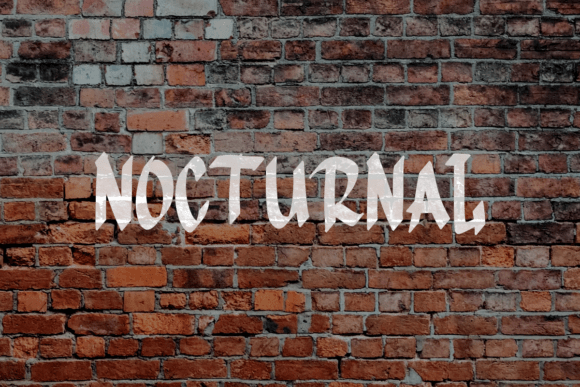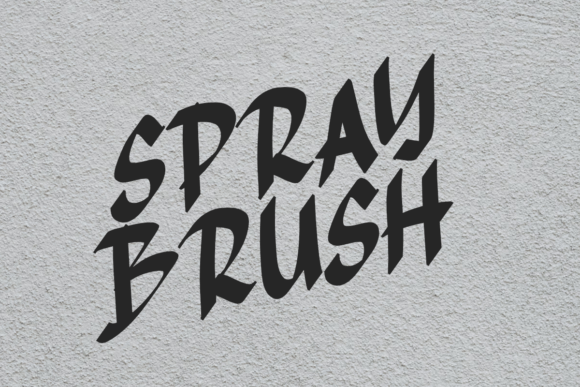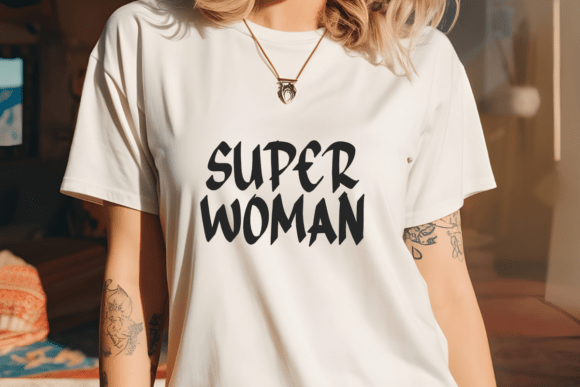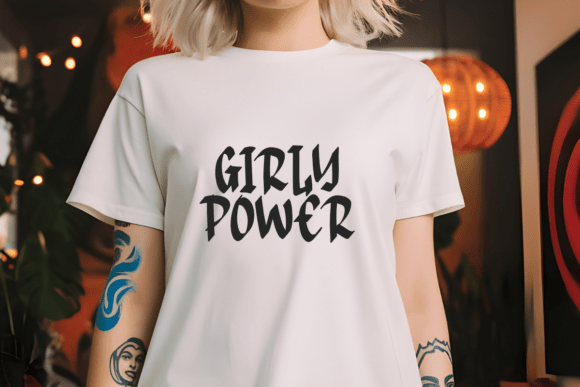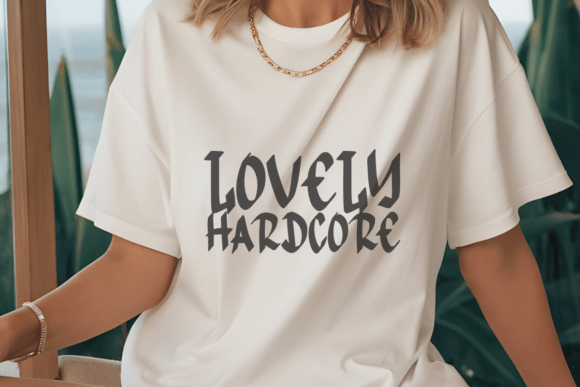
Introduction to Hiphop Jumps Font
Have you ever been working on a creative project, pouring your heart and soul into it, only to feel like something is missing? That’s where the perfect font can make all the difference. For designers and crafty individuals, finding the right font can be the key to taking your project from good to great. And that’s exactly what the Hiphop Jumps Font does – it brings an urban edge to your designs, making them stand out in a crowd.
This modern graffiti font is a game-changer for anyone looking to add a touch of street style to their work. With its clean yet bold aesthetic, Hiphop Jumps Font is perfect for stickers, posters, T-shirts, digital prints, and creative logos. Whether you’re designing for urban fashion, music events, or edgy DIY crafts, this font delivers a fresh and energetic look that’s sure to grab attention.
Key Features of Hiphop Jumps Font
- Features a unique, bold, and playful style that’s perfect for hip-hop and urban-themed designs
Honest Review: Hiphop Jumps Font
I recently had the chance to work with the Hiphop Jumps Font, and I must say it’s been a wild ride. This font is perfect for any creative project that needs a bold, eye-catching look. With its high quality design, it’s no wonder it’s become a popular design resource.
- ✨ The font is incredibly versatile, suitable for a wide range of projects, from logos to social media graphics.
- ⚠️ The font may not be suitable for text-heavy projects, as it can be overwhelming to read.
- ⚠️ Some users may find the font too bold or loud.
Overall, I’m impressed with the Hiphop Jumps Font. It’s a great addition to any designer’s toolkit, and I’d definitely recommend it for any creative project that needs a high-impact look.
How to Use Hiphop Jumps Font
The Hiphop Jumps Font is a high-quality, creative project design resource that can be used in a variety of applications. This font is ideal for designers and artists looking for a unique and eye-catching element to add to their work.
The Hiphop Jumps Font is ideal for a variety of creative projects, including:
- Graphic design and branding.
- Web design and development.
- Print design and advertising.
- Digital art and illustration.